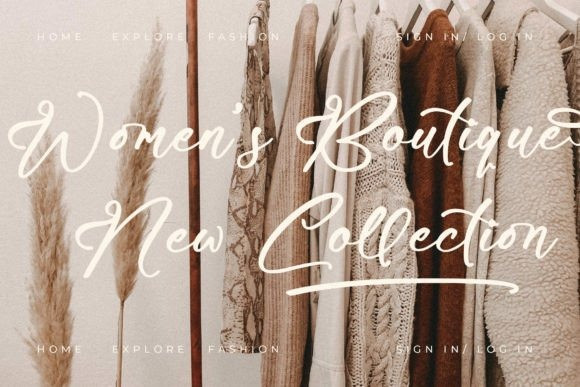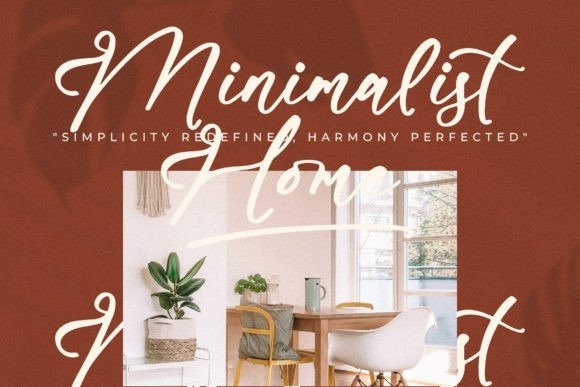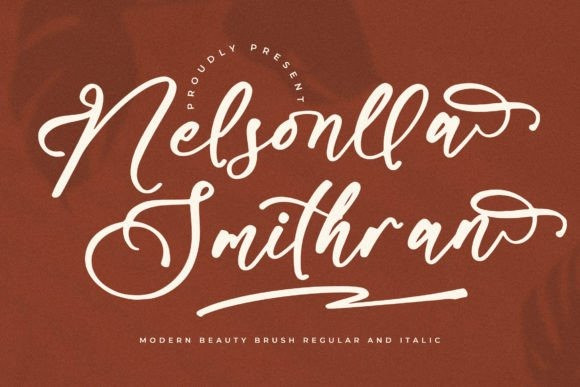
Nelsonlla Smithran Font
Nelsonlla Smithran Font – Modern Beauty Brush , from Glorytype Studio, suitable for any projects such as: logos, branding projects, homeware designs, product packaging, mugs, quotes, posters, shopping bags, t-shirts, book covers, name card, invitation cards, greeting cards, label, photography, watermark, special events, and all your other lovely projects that need a beautiful script taste.